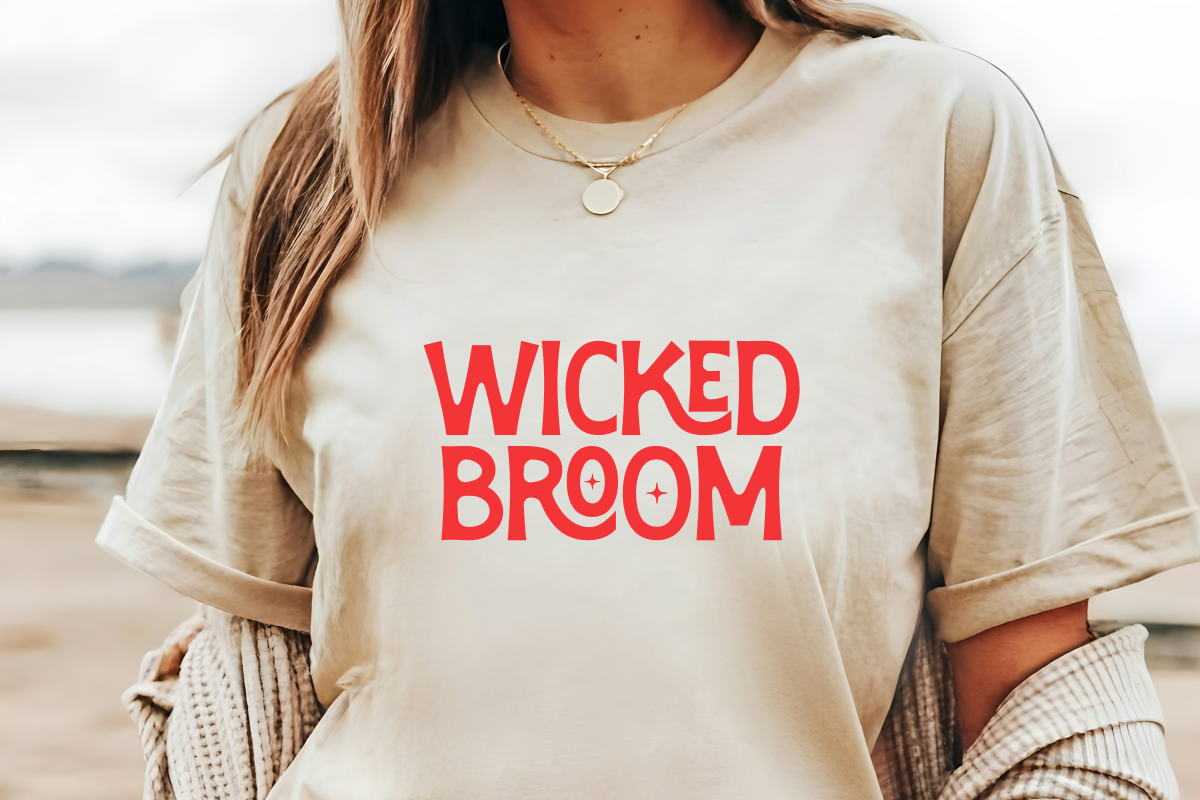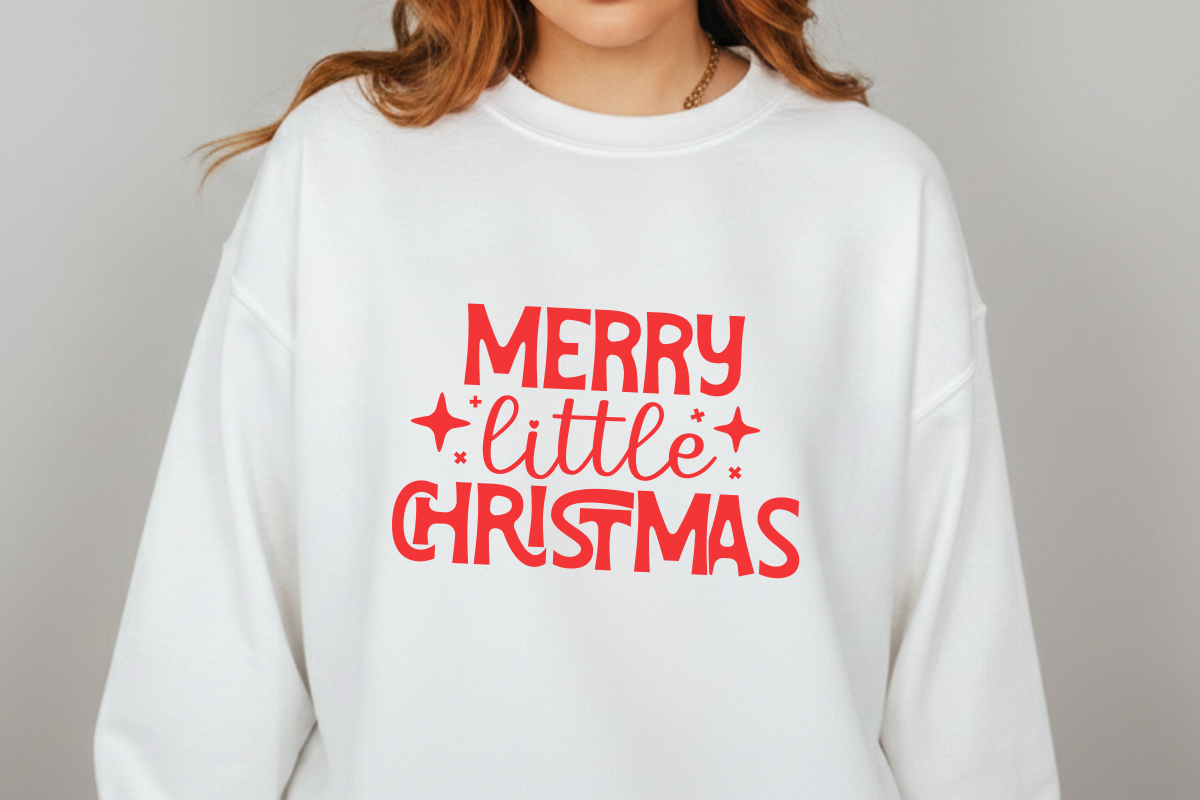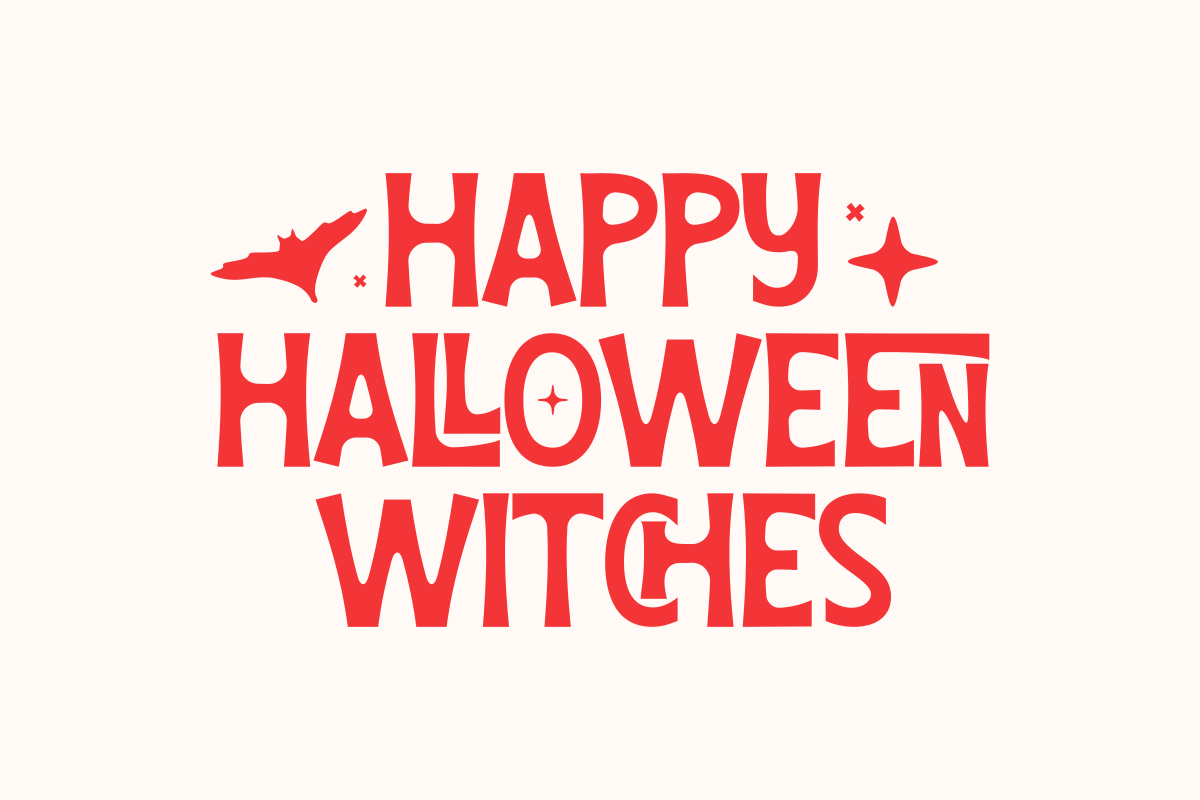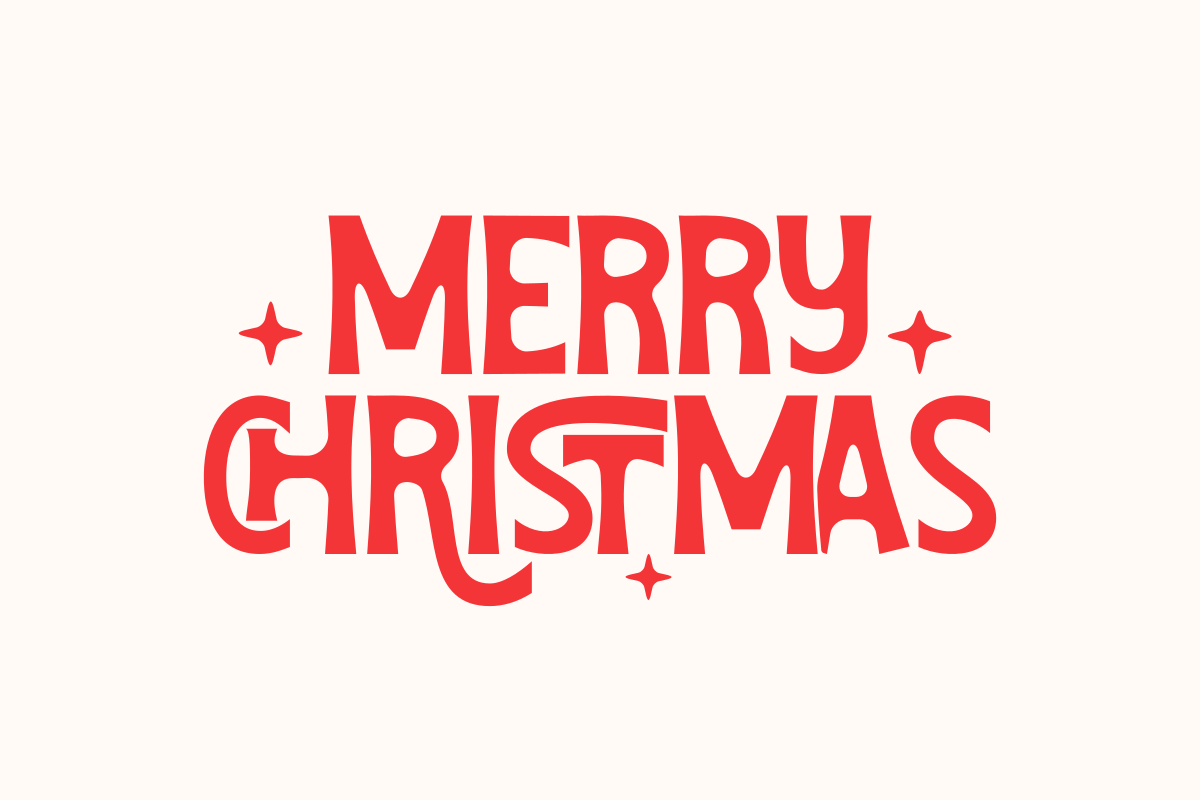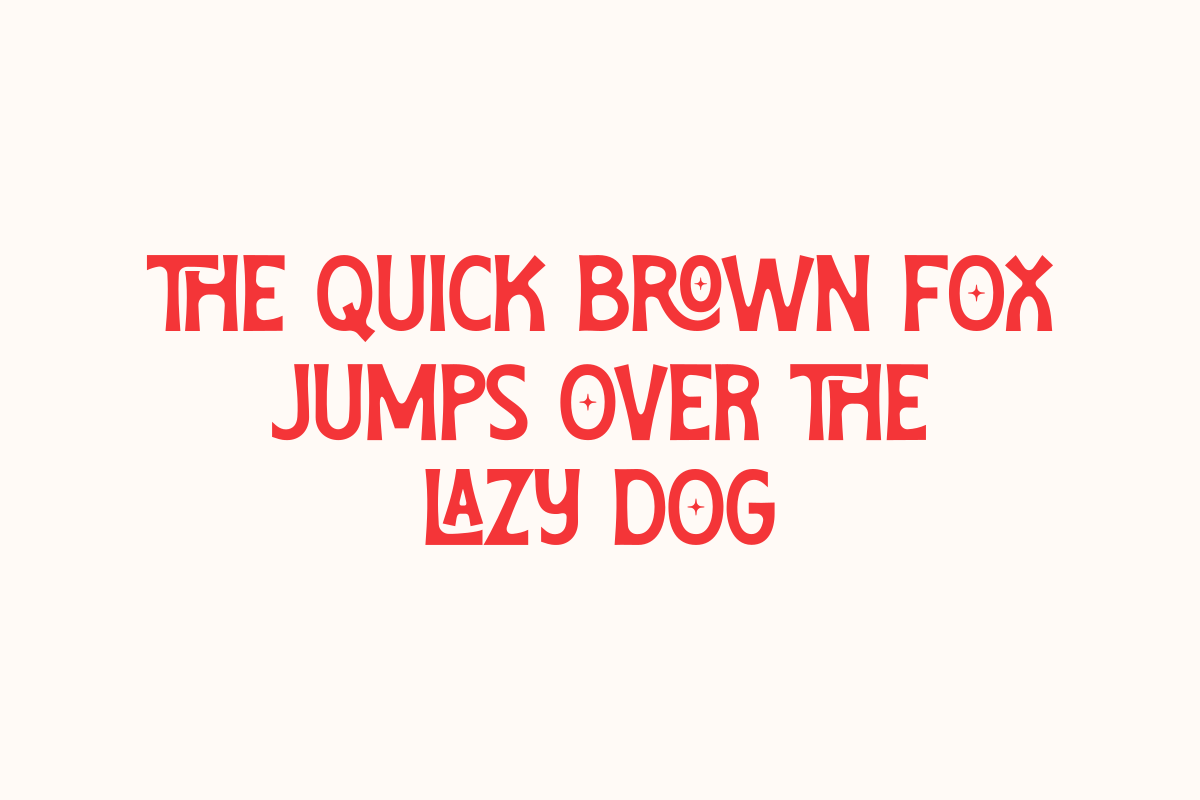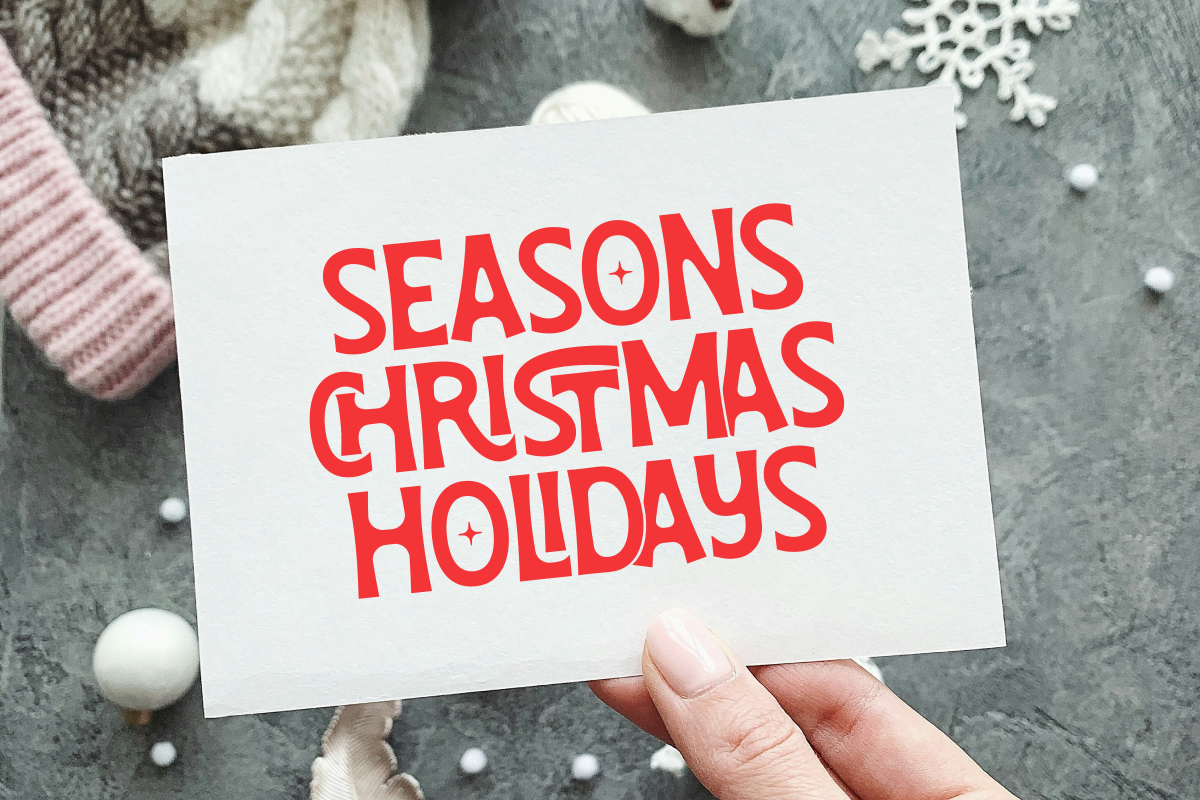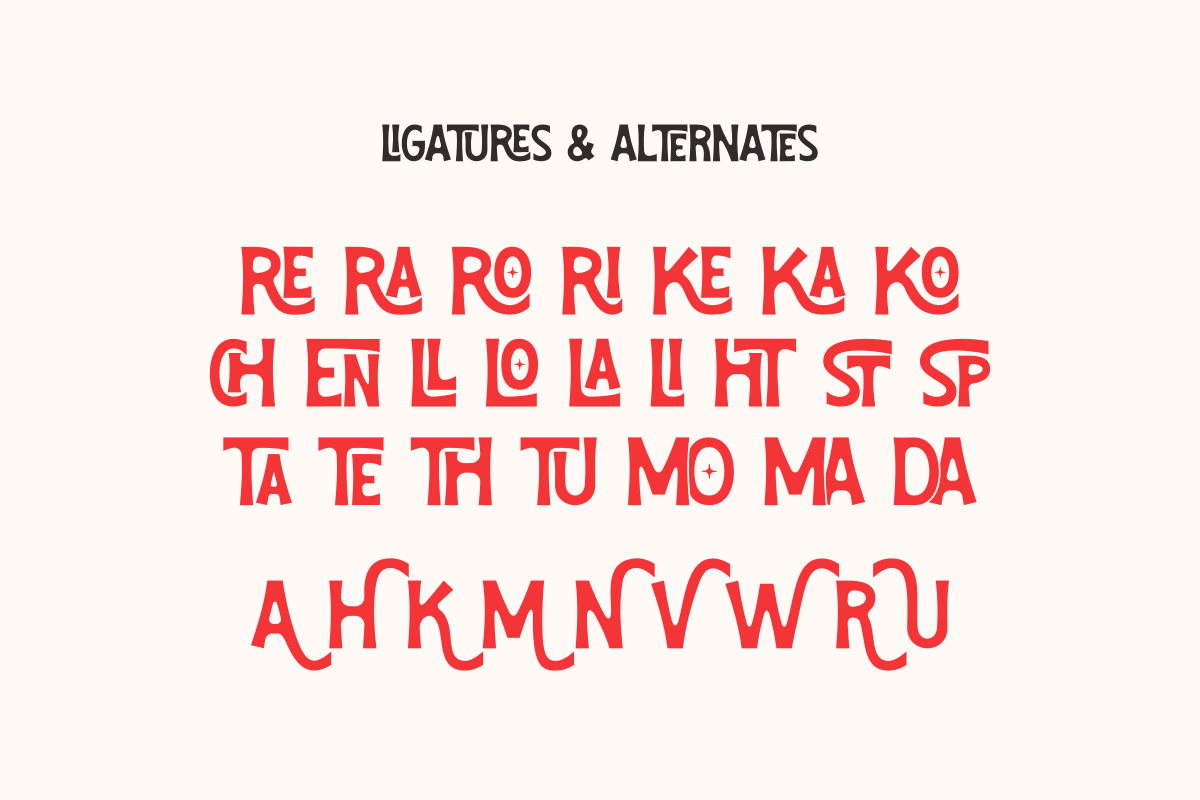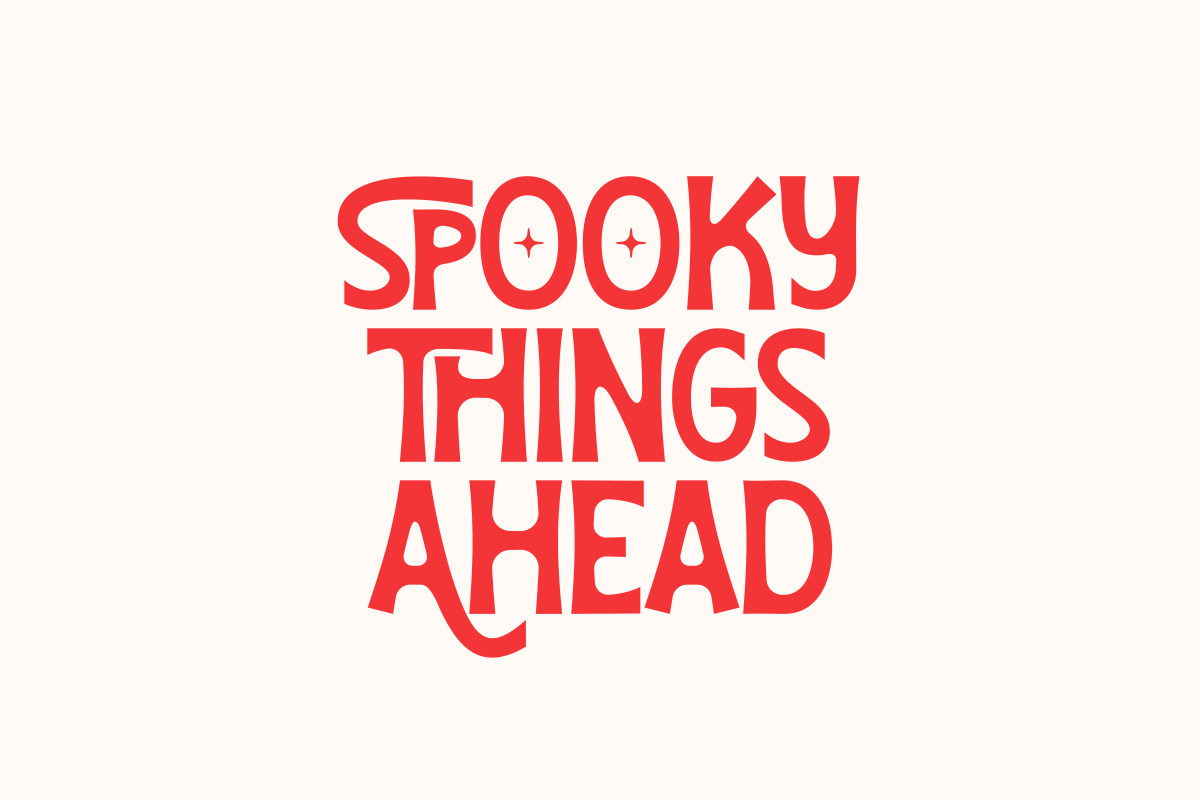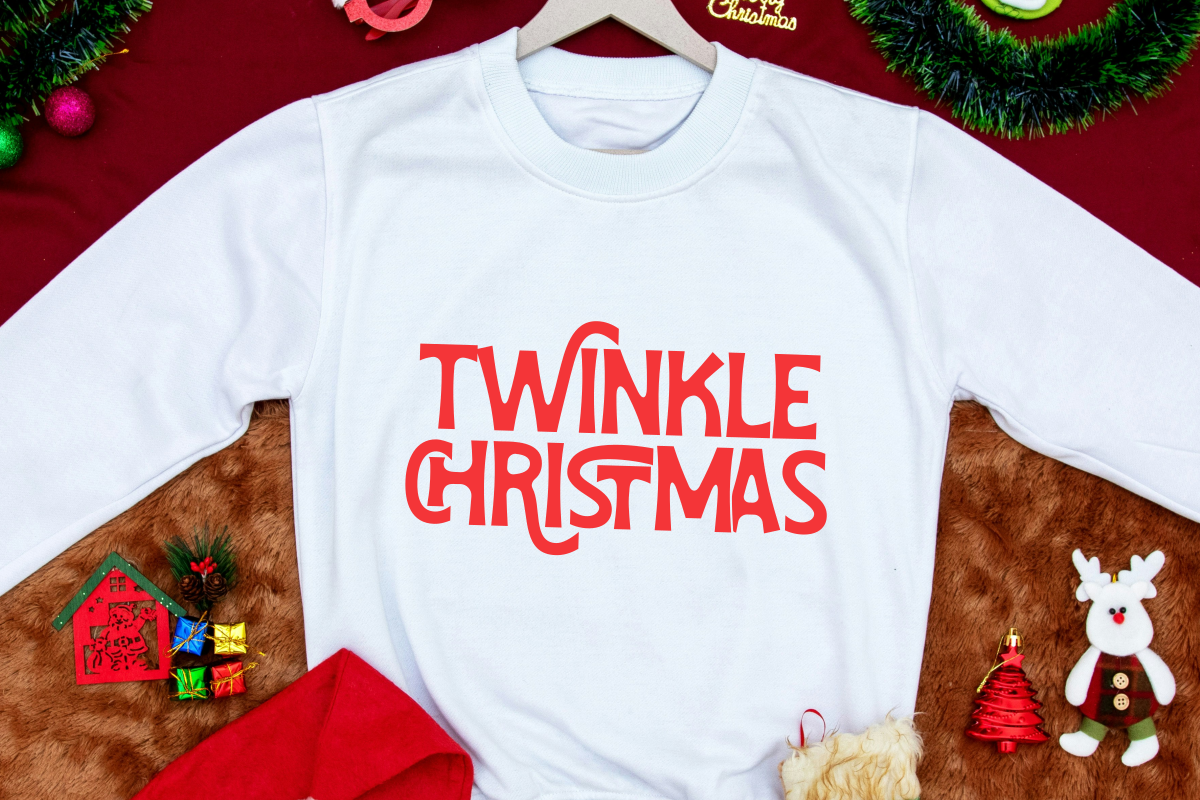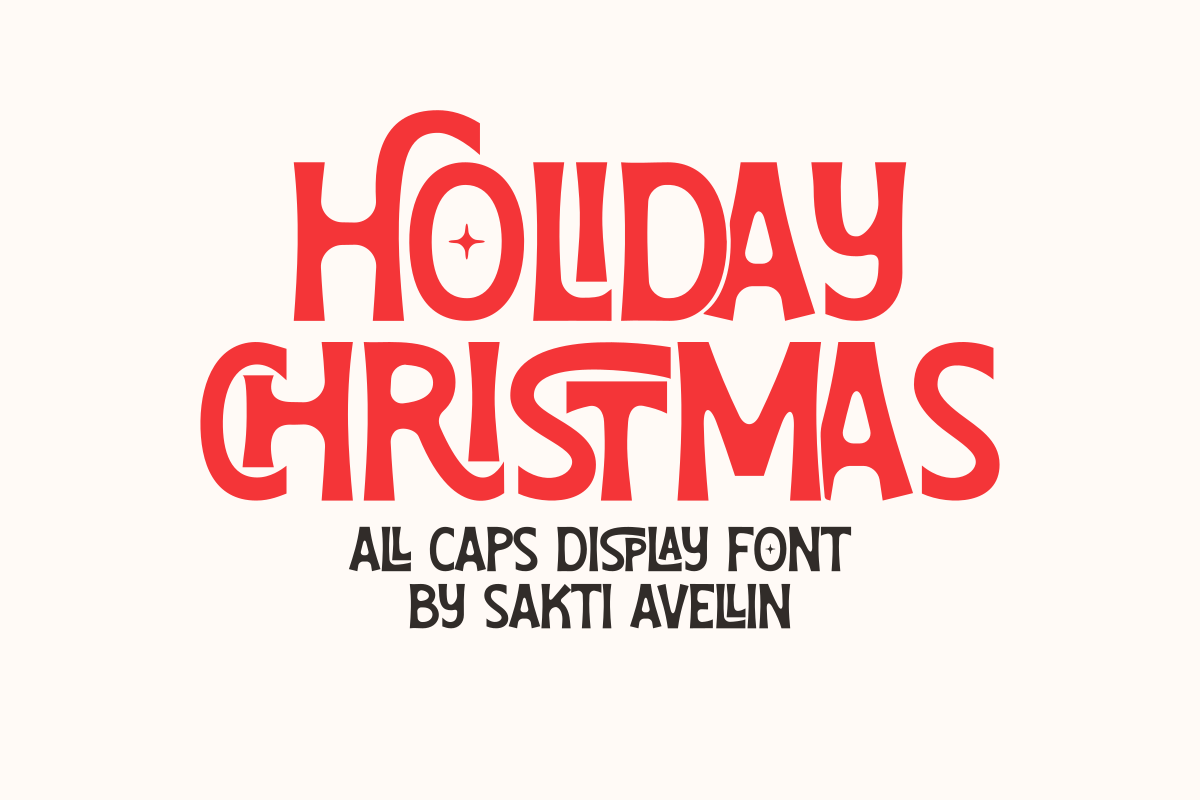
Holidays Christmas - Display Font
Holiday Christmas is an engaging and festive all caps display font designed to bring a warm, seasonal vibe to your creative projects. This charming typeface features bold, stylized letterforms with unique whimsical curves and starry accents that effortlessly capture a joyful holiday spirit. Perfect for Christmas branding, seasonal invitations, greeting cards, festive posters, apparel, and cheerful social media graphics, this font ensures your headlines stand out with a handcrafted personality. Whether you are designing for winter events, holiday merchandise, or magical packaging, Holiday Christmas adds a delightful and creative touch to every design.